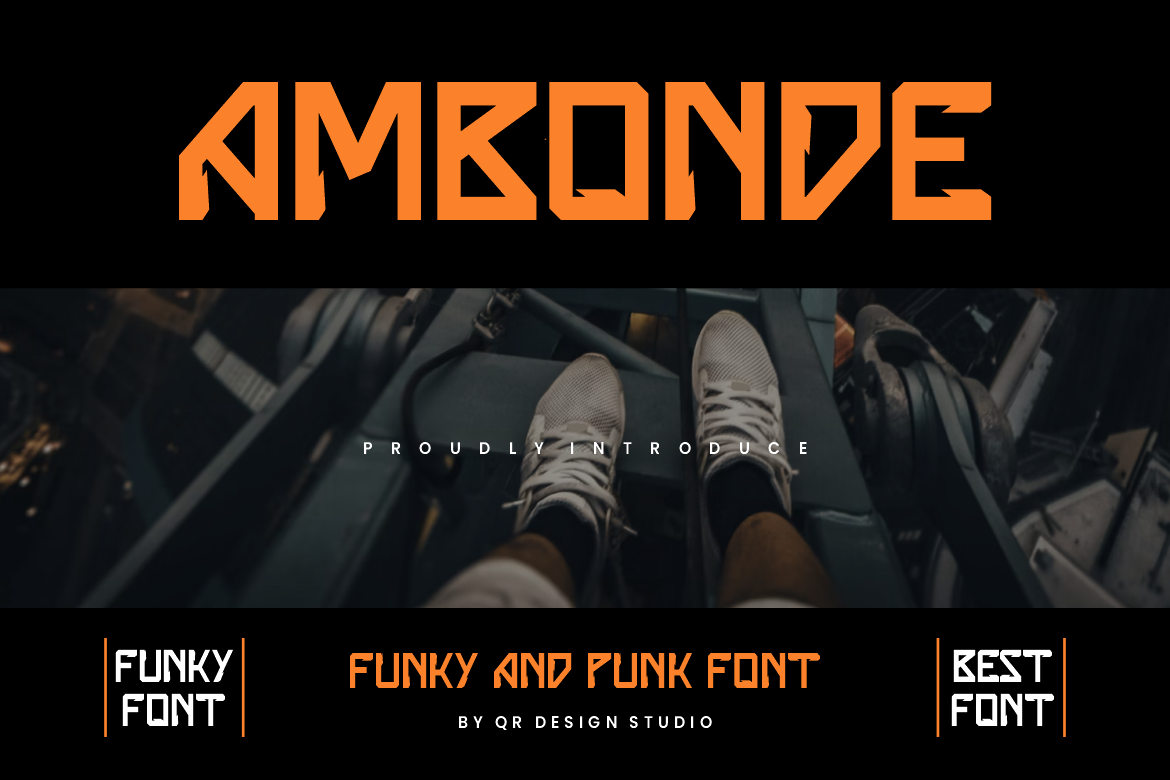
Ambonde - Punk & Funky Font
Ambonde Font is a bold and authentic display font. The font is suitable for any branding project like poster, logo, sport, and many more. Outstanding in a wide range of contexts.